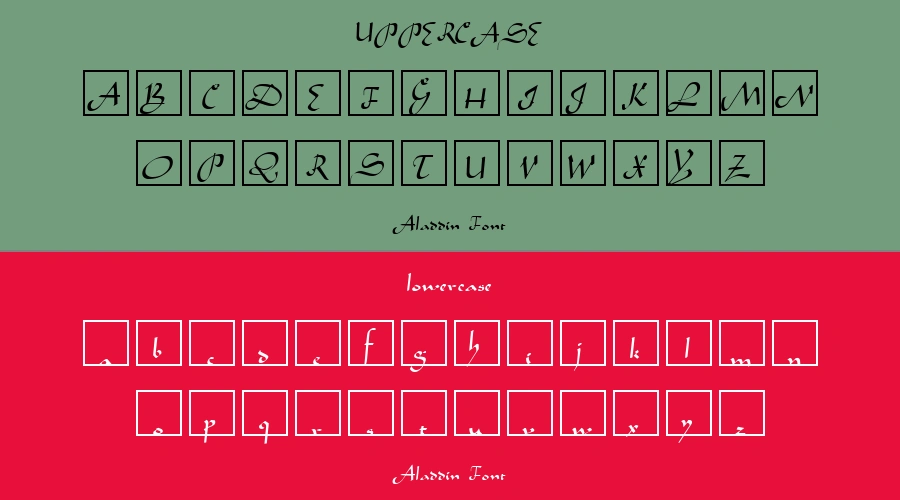
About Aladdin Font
Aladdin Font represents a sophisticated approach to type design, balancing ornamental caps with precision. Perfect for presentation decks, this font family showcases impressive durability and sophistication throughout its character set. Designers appreciate its versatility and reliability.
Designers will appreciate nuanced touches including dramatic swashes and expert sets, adding sophistication to any project. These features become apparent in campaign headers, where scalability matters most. The careful treatment of stroke contrast and design lineage ensures optimal performance.
Aladdin Font |